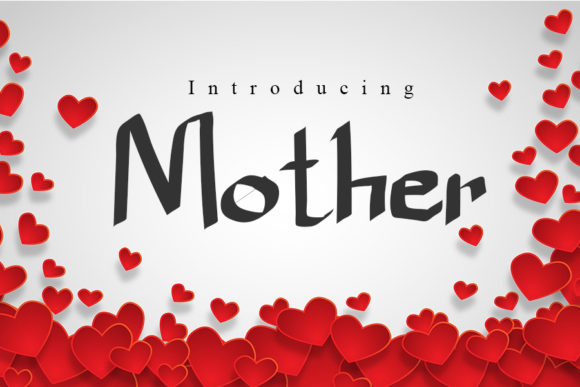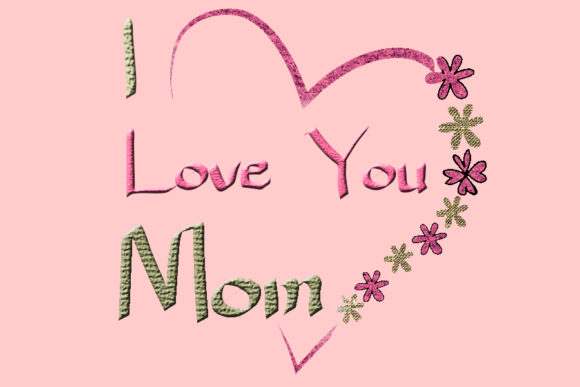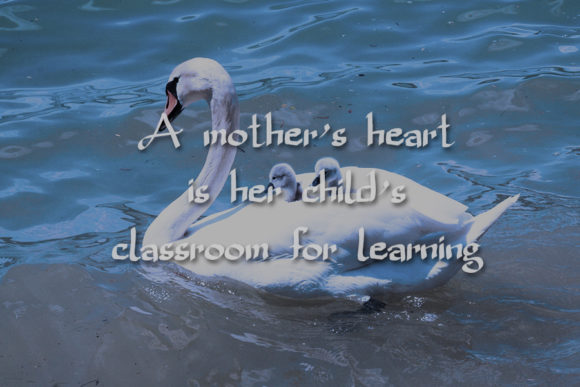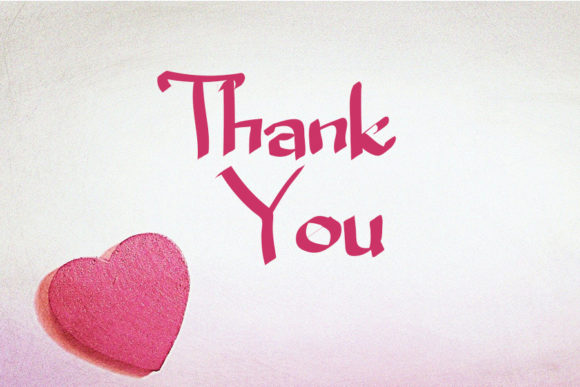
Mother Font
About Mother Font
Mother is a joyful and friendly handwritten font. Fall in love with its sweet, versatile style and use it to create lovely designs for school or children related.